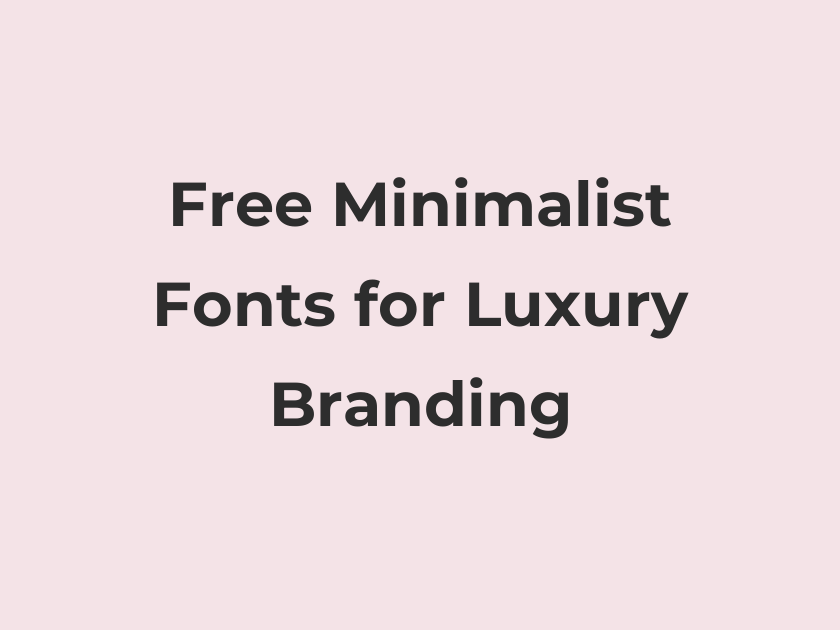
60 Best Free Minimalist Fonts for Luxury Branding
Luxury branding today often leans on restraint rather than ornament: generous negative space, a single confident typeface, and letterforms that whisper quality instead of shouting it. The best free minimalist fonts for this kind of work tend to fall into two families, pared-back sans-serifs with impeccable proportions and refined serifs with the poise of an old fashion house, and Google Fonts now offers genuine alternatives to the paid luxury staples that design studios have relied on for years.
Whether you are building a logotype for a jewelry line, a minimalist packaging system, or a boutique hotel’s website, the right typeface does most of the persuading before a single word is read. The selections below cover geometric sans faces, humanist workhorses, high-contrast display serifs, and a few decorative accents worth using sparingly on a monogram or crest.
Refined craftsmanship, considered down to the millimeter
Drawn from the geometric lettering on old Buenos Aires shopfronts, Montserrat trades warmth for precision. Its circular counters and even stroke widths make it a dependable choice for logotypes that need to feel modern without chasing trends, and the lighter weights read as genuinely upscale on packaging and signage.
Modern elegance, minimal form, maximum presence
Poppins builds every letter from near-perfect circles and straight lines, which gives it a clean, almost architectural quality at large display sizes. Keep it to headlines and short taglines; the geometric strictness can feel a touch mechanical in long paragraphs.
An understated mark for a confident brand
Raleway’s elegant single-story letterforms and generous spacing give it a fashion-catalogue feel that few free sans-serifs manage. The thin weight in particular suits wordmarks for skincare, jewelry, and interior design brands aiming for a light touch.
Pure geometry for a timeless luxury mark
Jost is the closest free relative to the classic geometric sans faces that luxury brands have used for decades, with perfectly round o’s and a confident, almost art deco rhythm. It works beautifully as a substitute where a brief calls for something in the Futura family but the budget calls for Google Fonts.
Considered simplicity for a lasting impression
Slightly warmer than most geometric sans faces, Work Sans was optimized for screen reading, which makes it a practical partner for a display serif logotype. It disappears into the background in the best way, letting product photography and packaging do the talking.
Precision engineered for digital luxury interfaces
Inter was built for interfaces, and it shows in the tight, even spacing and tall x-height that stay crisp at small sizes. Any brand building a minimalist e-commerce experience around a luxury product line will find it a reliable, unobtrusive workhorse.
Modern minimalism with a soft edge
Manrope softens geometric rigidity with slightly rounded terminals, giving it warmth without sacrificing the clean grid a luxury identity needs. It pairs comfortably with a serif logotype as a body-copy companion.
Restrained confidence in every letterform
Karla carries a grotesque backbone with a few humanist details in the curves, which keeps it from feeling cold. It suits stationery and web copy for brands that want understated design without veering into anonymity.
Clean lines for a modern atelier
Outfit reads as tidy and self-assured, with a light weight that suits minimalist packaging labels and app interfaces alike.
Structured minimalism for a digital-first label
Sora has a slightly technical, engineered feel that suits direct-to-consumer luxury brands built around a clean digital experience rather than heritage storytelling.
Airy geometry for a boutique identity
Wide apertures and generous spacing give Urbanist an airy quality that works well on light-filled packaging or a minimalist website hero section.
Sharp minimalism for a directional brand
Epilogue leans slightly angular and editorial, a good fit for fashion-adjacent brands that want their sans-serif to carry a bit of attitude rather than pure neutrality.
Technical precision meets understated luxury
Space Grotesk keeps a monospace-inspired structure but softens it into a proportional face with distinctive, slightly quirky details in the lowercase g and capital R. It suits tech-forward luxury brands, from smart home devices to design-led furniture labels, where a little personality is welcome alongside the minimalism.
Low-profile elegance for interface and print
DM Sans stays out of the way, which is exactly the point for a luxury brand that wants its product, not its typeface, to be memorable.
Lexend
Legible minimalism built for luxury retail
Lexend
Developed with reading research behind it, Lexend holds up well in small print like ingredient lists and care instructions without losing its clean, modern character.
Test every candidate at the sizes it will actually be used, from a tiny care label to a storefront sign, since several of the finer serifs and thin sans faces above lose definition well before they lose their charm.